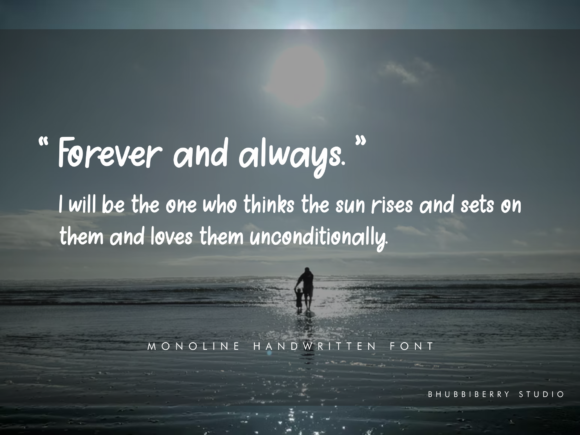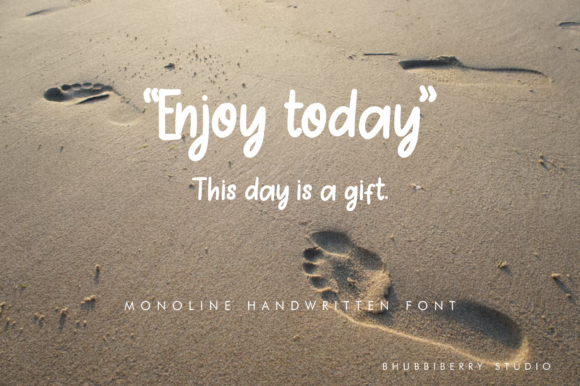
Elnino KIddy Font
db-ku.com - Script & Handwritten -- Elnino KIddy is a simple, cute and casual handwritten font. It is suitable for any branding project like logos, t-shirt printing, newspapers, posters, advertisements, multimedia, and more. It will look outstanding in a wide range of contexts.